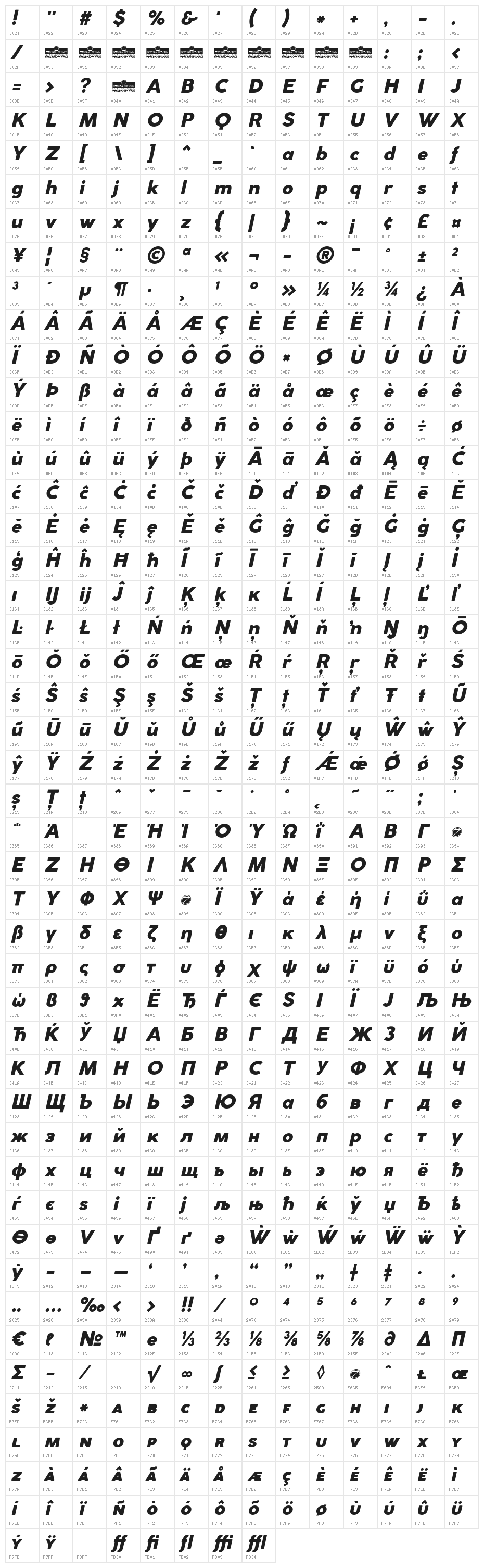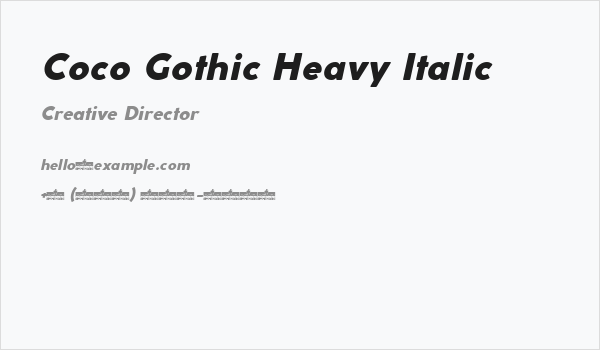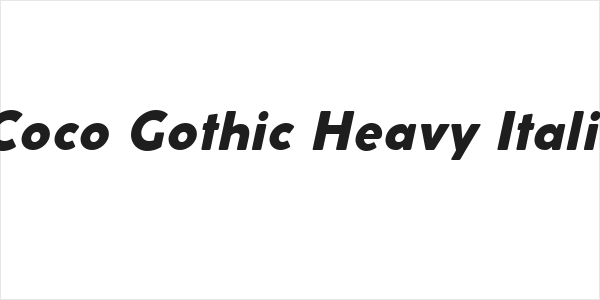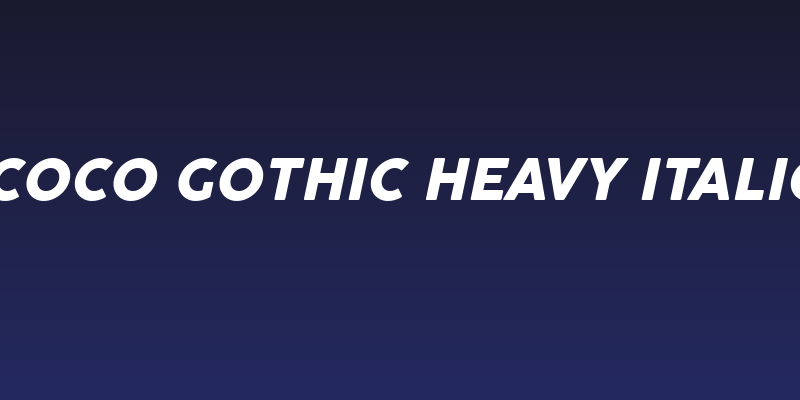
Coco Gothic Heavy Italic Font
Coco Gothic Heavy Italic Description
This font features a bold and dynamic style with a strong geometric influence. The characters are heavy and italicized, providing a sense of movement and energy. The uppercase letters are robust and assertive, while the lowercase letters maintain a consistent weight and style. The numerals are clear and legible, matching the overall boldness of the font. Special characters are designed with the same heavy and italicized characteristics, ensuring consistency across all glyphs. The font's design is modern and versatile, suitable for various applications where a strong visual impact is desired.
| Proposed Projects | Ideal for branding, advertising, headlines, and any project requiring a bold statement. |